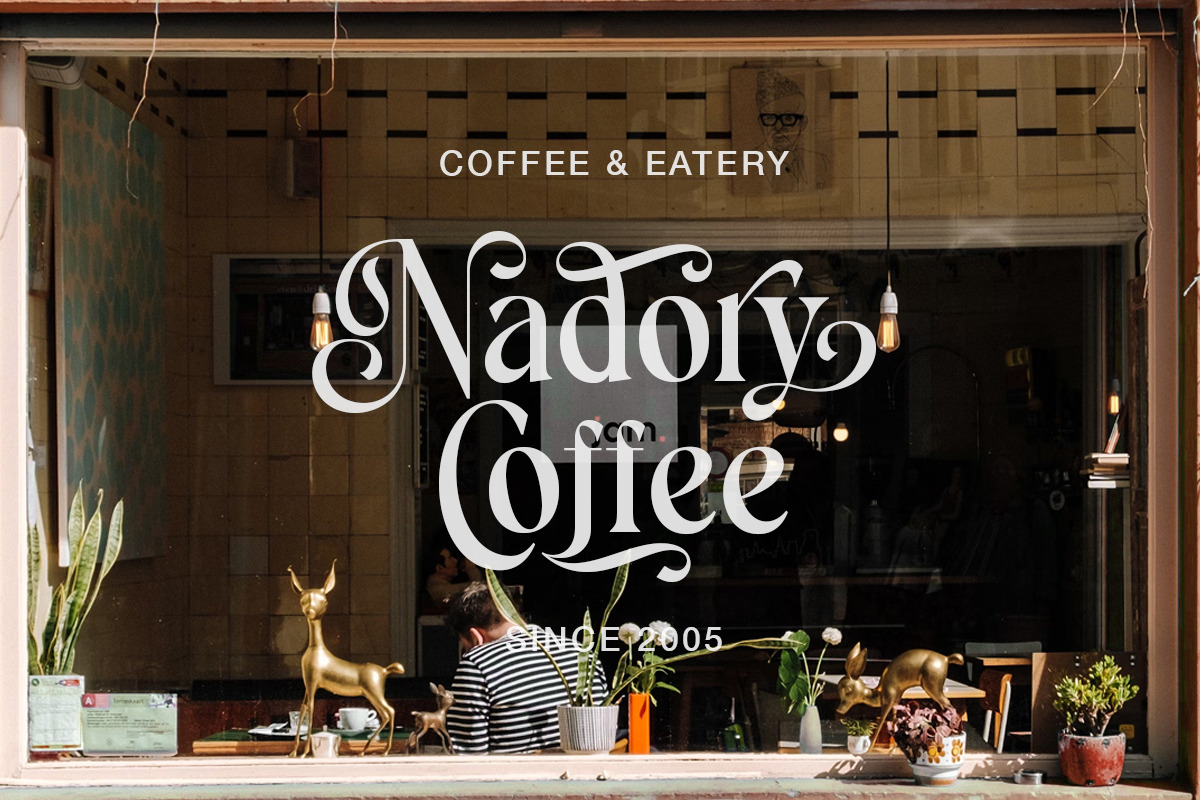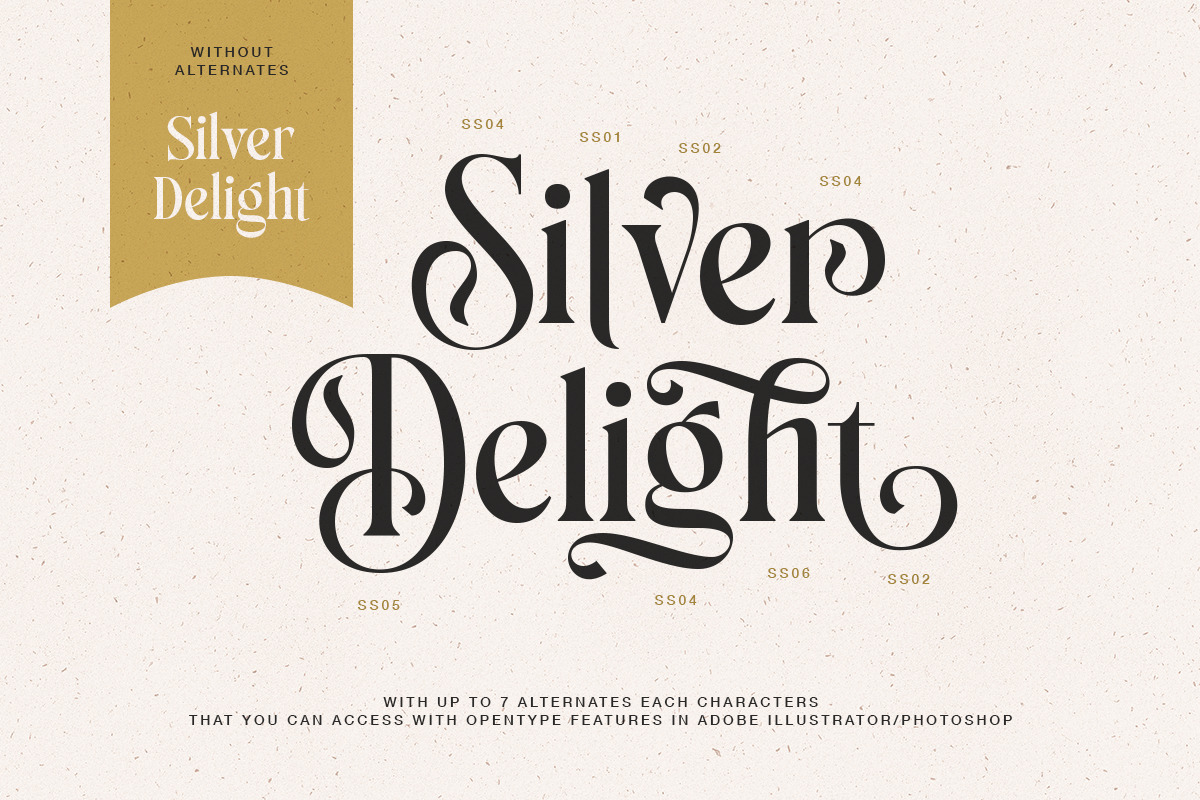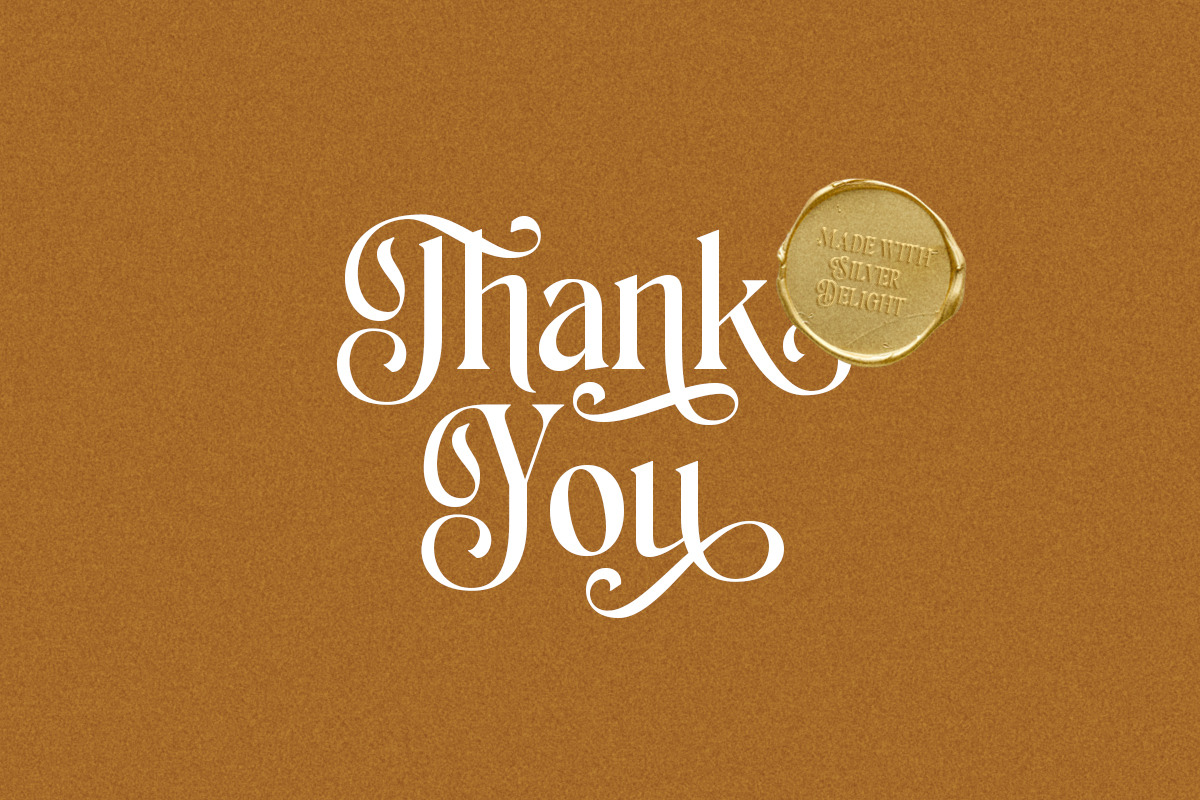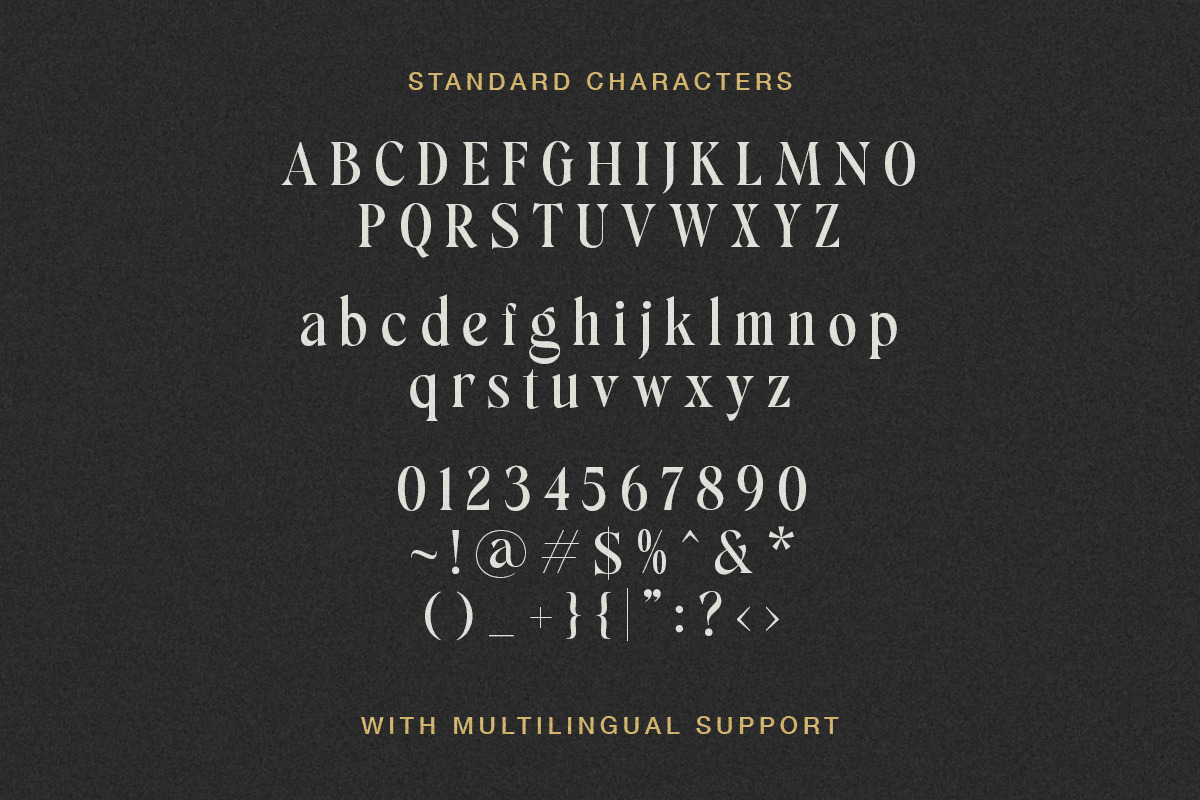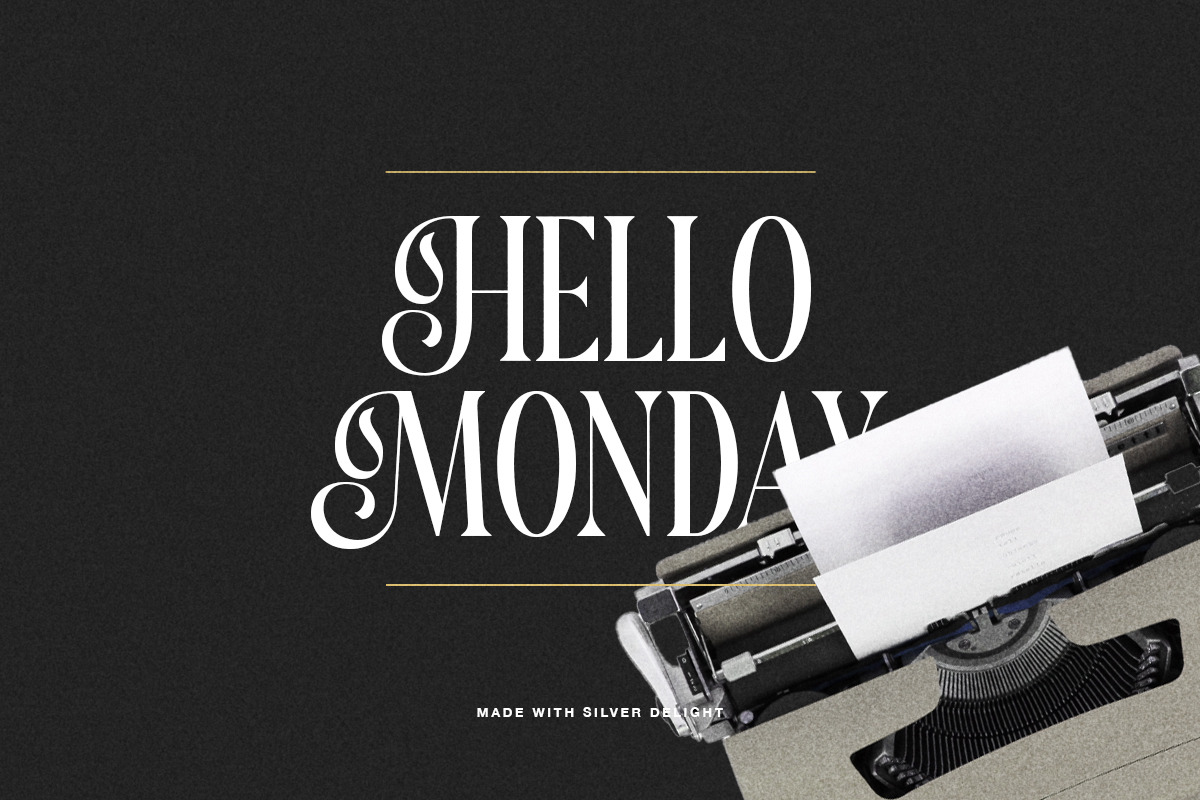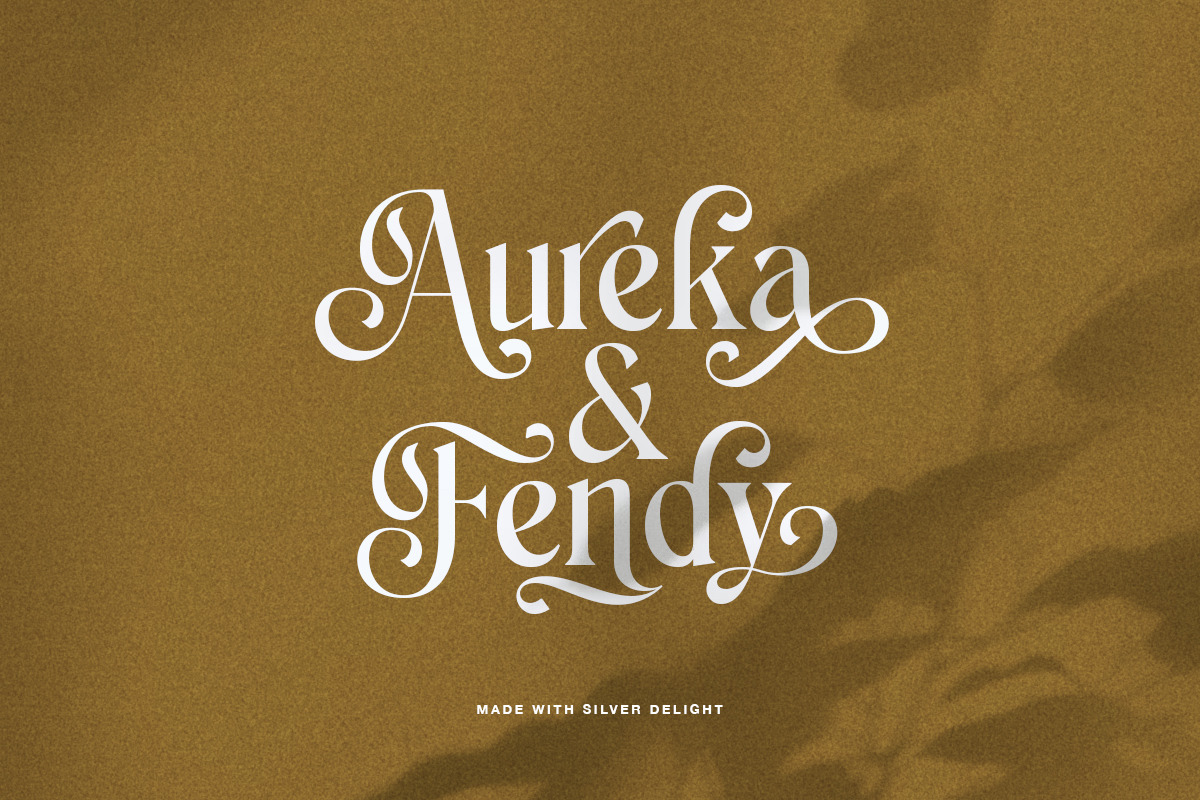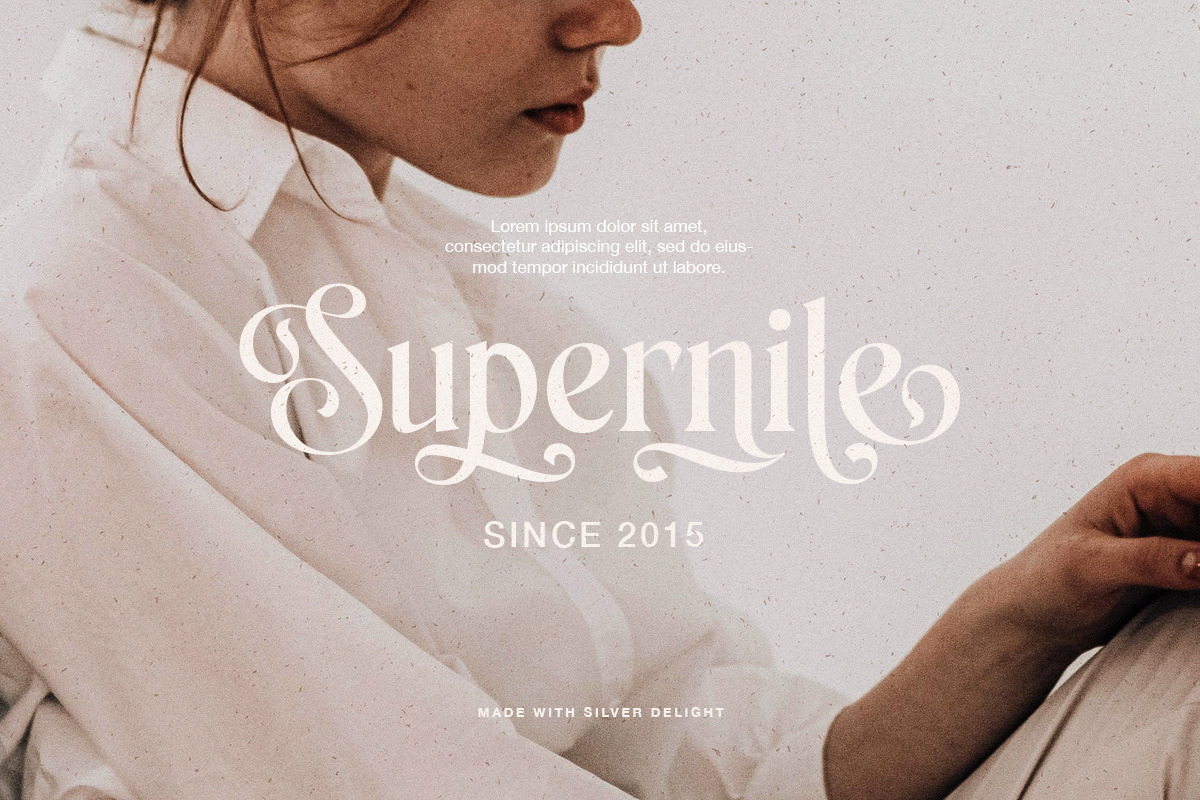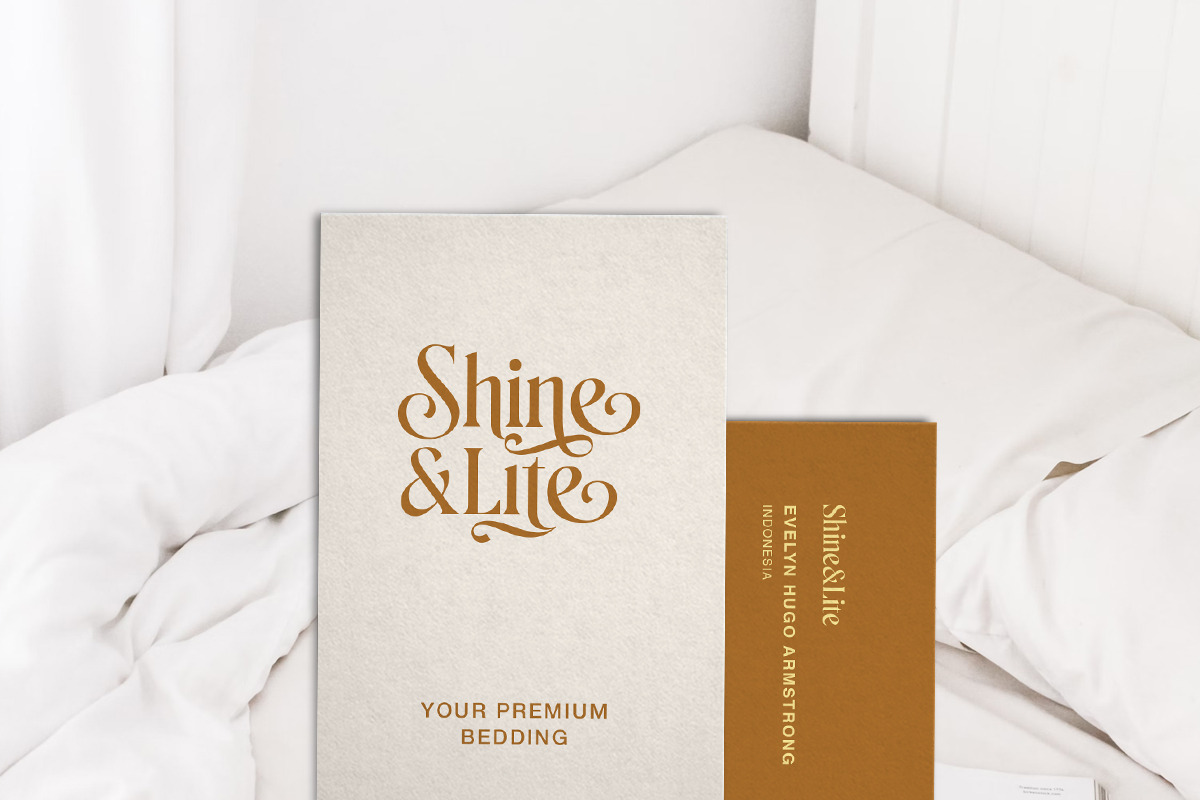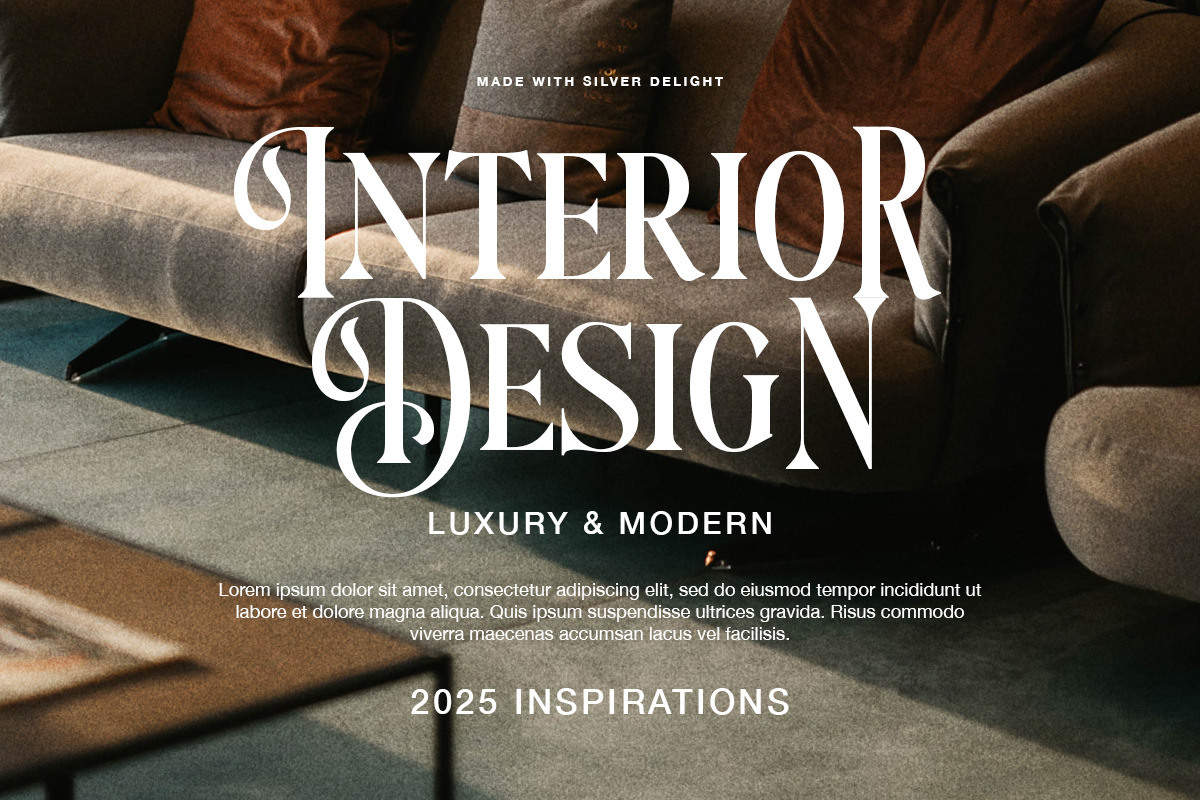
Silver Delight Modern Serif
Silver Delight is a modern serif. This typeface has many stylish alternates with swashes that can make your lettering / logotype become more interesting. The clean and neat of a serif combined with the swirl swashes makes this font one of a kind!
This font perfectly made to be applied especially in logo, and the other various formal forms such as invitations, labels, logos, magazines, books, greeting / wedding cards, packaging, fashion, make up, stationery, novels, labels or any type of advertising purpose.